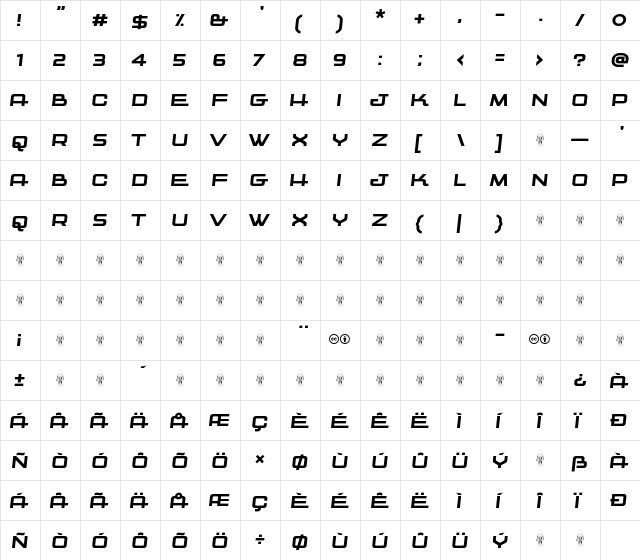
Kwajong Italic
Design Context for Kwajong Typeface
Kwajong is a composed and adaptable typeface that performs quietly and consistently across a wide range of design contexts. The slanted form adds forward momentum and visual energy.
Pro Tip: Try Kwajong for annotation and caption copy alongside an upright companion — the contrast in angle creates a dynamic but ordered typographic system.